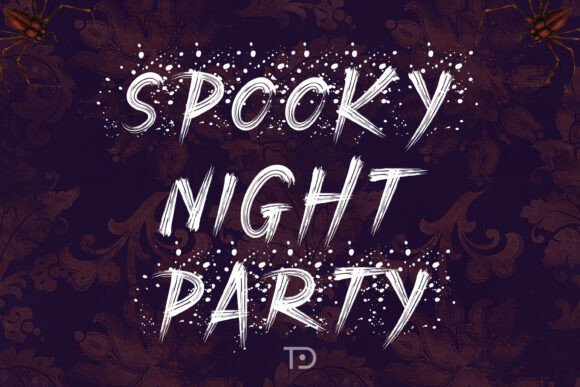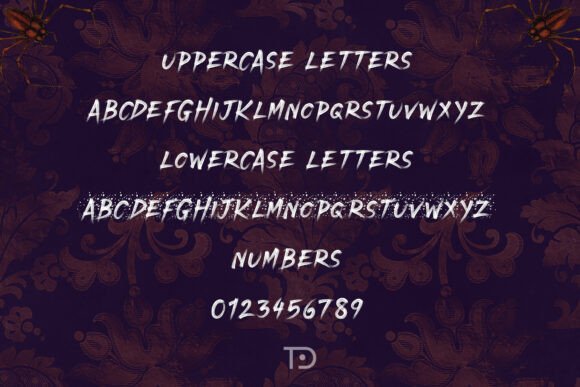
Introduction to Rough Creepy Font
Rough Creepy is a terrifyingly bold Halloween font with a scratchy, hand-drawn style that screams horror.
Its jagged strokes and chaotic texture make it the perfect choice for scary movie posters, haunted house flyers, horror game titles, or any spooky seasonal design that demands attention .
Key Features of Rough Creepy Font
Why Choose Rough Creepy Font?